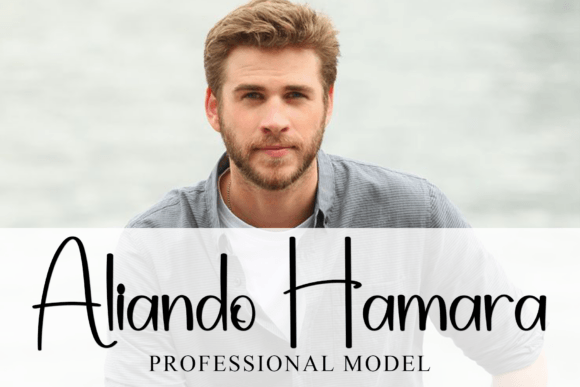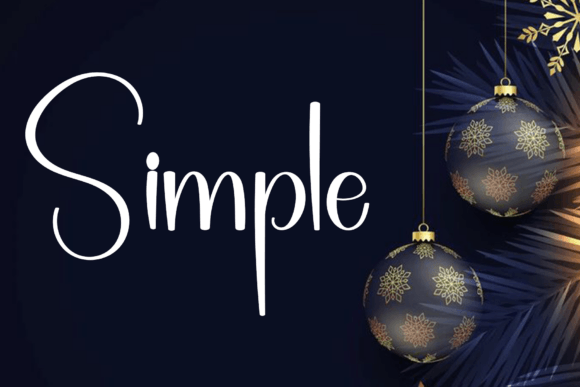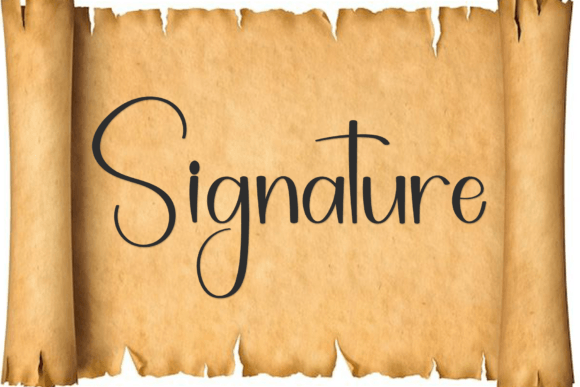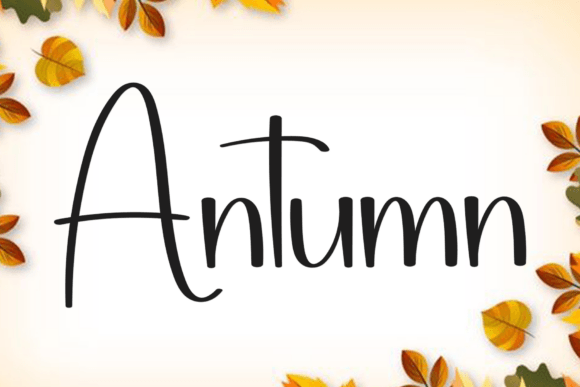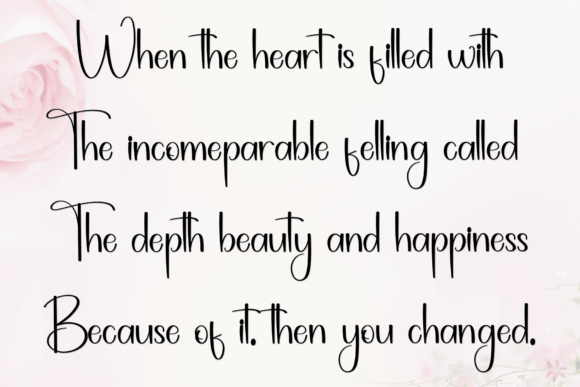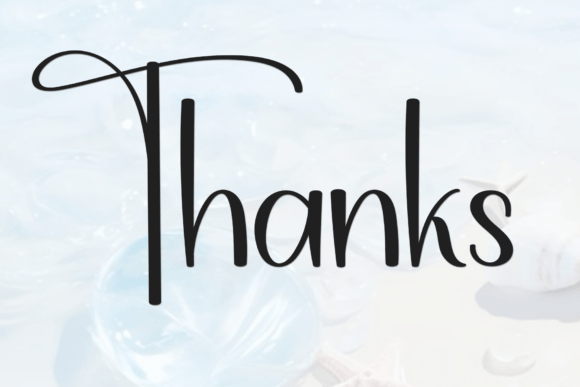
Unleash Your Creativity with Bubbles Font
Who hasn’t experienced that moment of pure creative joy, when a new idea pops up and you can’t wait to bring it to life? For designers, it’s the thrill of combining the right words, colors, and fonts to convey a message that resonates with their audience. And when it comes to fonts, few can match the warmth and friendliness of the Bubbles Font. This charming, hand-drawn font is perfect for personal projects, invitations, and social media graphics that require a relaxed and approachable feel.
With its round, playful strokes and standard PUA Encoded glyphs, the Bubbles Font is a valuable addition to any designer’s toolkit. Whether you’re working in Adobe Photoshop, Corel, Adobe Illustrator, or Canva, this font is designed to bring a fun and unique touch to your designs, making it a must-have for anyone looking to add a little extra personality to their work.
- Unique Characteristics: Bubbles Font features a playful, hand-drawn design with rounded shapes and subtle texture, making it perfect for creative and whimsical projects.
Bubbles Font Review
Overall, I think the Bubbles Font has some great qualities, but it’s not without its limitations. Here’s my honest take:
- Playful and whimsical feel: The Bubbles Font has a fun, bubbly vibe that’s perfect for designs that need a touch of personality.
- Clean lines and simple shapes: The font’s simplicity makes it easy to read, even at smaller sizes.
- Wide range of uses: The Bubbles Font can be used for a variety of projects, from children’s books to advertising and more.
- Limited expressiveness: While the font is fun, it’s not particularly expressive or nuanced. It’s great for simple messages, but might not be the best choice for complex or emotional content.
- May not be suitable for formal designs: The Bubbles Font’s playful feel might be at odds with more formal or professional designs.
Overall, I think the Bubbles Font is a great choice for projects that need a lighthearted, approachable feel. However, it’s not the best choice for every project, and designers should consider the font’s limitations before using it.
Tips for Getting the Most Out of Bubbles Font
To get the most out of Bubbles Font, use it in bold, playful, and creative contexts, such as:
1. Party invitations and decorations.
2. Children’s books and educational materials.
3. Social media graphics and ads.
Bubbles Font is commonly used in:
1. Party and event graphics.
2. Children’s birthday invitations.
3. Social media promotions and ads.